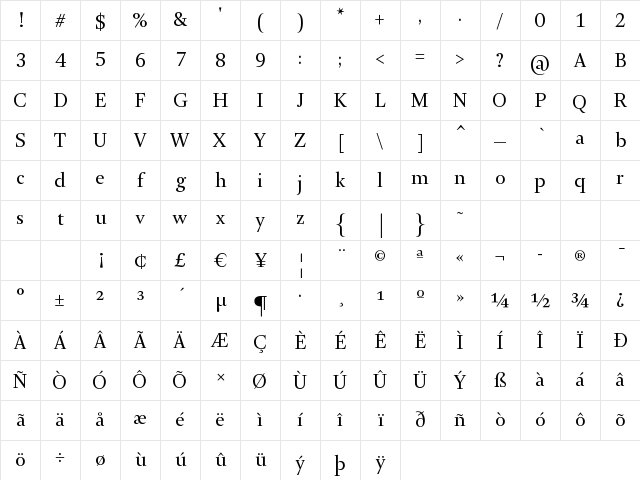
ArnhemFine-Normal Regular
Design Context for ArnhemFine-Normal
ArnhemFine-Normal is a composed and adaptable typeface that performs quietly and consistently across a wide range of design contexts.